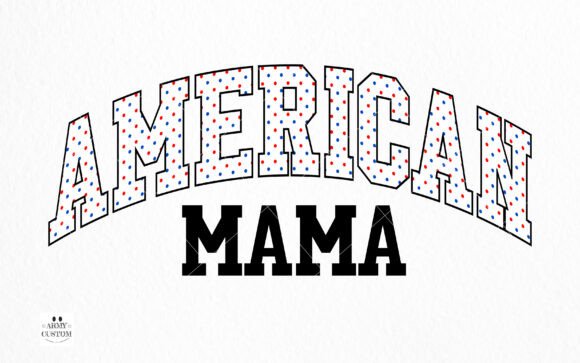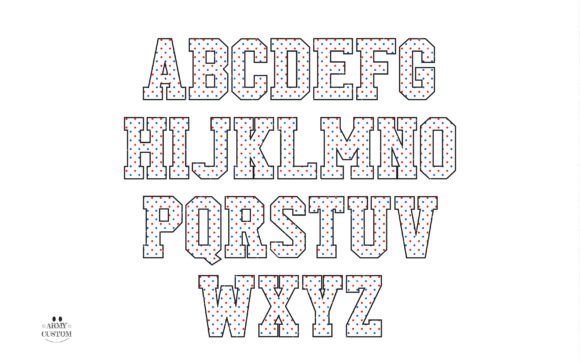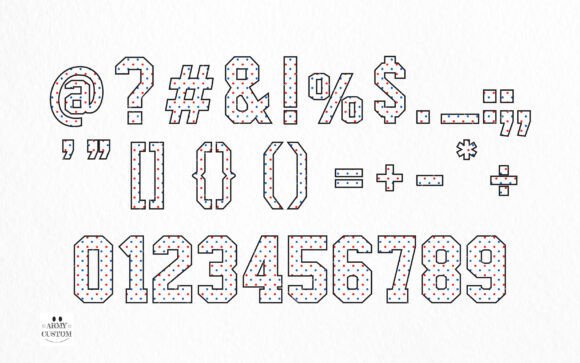
Immerse Yourself in Patriotic Celebrations with the American Memorial Day Font
I’ll never forget the summer I was tasked with designing a Memorial Day-themed project for a client. As I scoured the internet for the perfect font, I found myself stuck in a sea of generic, uninspiring options. That was until I stumbled upon the American Font Polka Dot pattern β a game-changer for any designer looking to infuse their work with a touch of American charm.
What Makes the American Memorial Day Font So Special?
True to its name, this font captures the essence of Memorial Day Americana in every curve and line. Uniquely designed and inspired by the heart of the United States, it embodies the charm and spirit of American aesthetics. This is not just a font; itβs a tribute to the Land of the Free, brought to life through typography.
- β¨ Unique and eye-catching polka dot pattern that’s sure to turn heads
- β Highly versatile and suitable for a wide range of creative projects
- π« Exquisite attention to detail, making it perfect for high-end designs
- π Easy to use and pairs well with a variety of other fonts and design elements
While the American Memorial Day Font is an exceptional choice, there are a few things to keep in mind:
β οΈ It may not be the best fit for body text or lengthy content, as its unique design can be distracting in large blocks of text.
π€ Some users may find the polka dot pattern a bit overwhelming or busy, especially when used in conjunction with other bold design elements.
The American Memorial Day Font was designed by a team of creatives who wanted to capture the essence of American patriotism in a unique and beautiful way. Inspired by classic American design elements, such as polka dots and stripes, the font is a tribute to the country’s rich history and spirit.
Q: What makes the American Memorial Day Font so unique?
A: The font’s unique polka dot pattern and attention to detail make it stand out from other fonts.